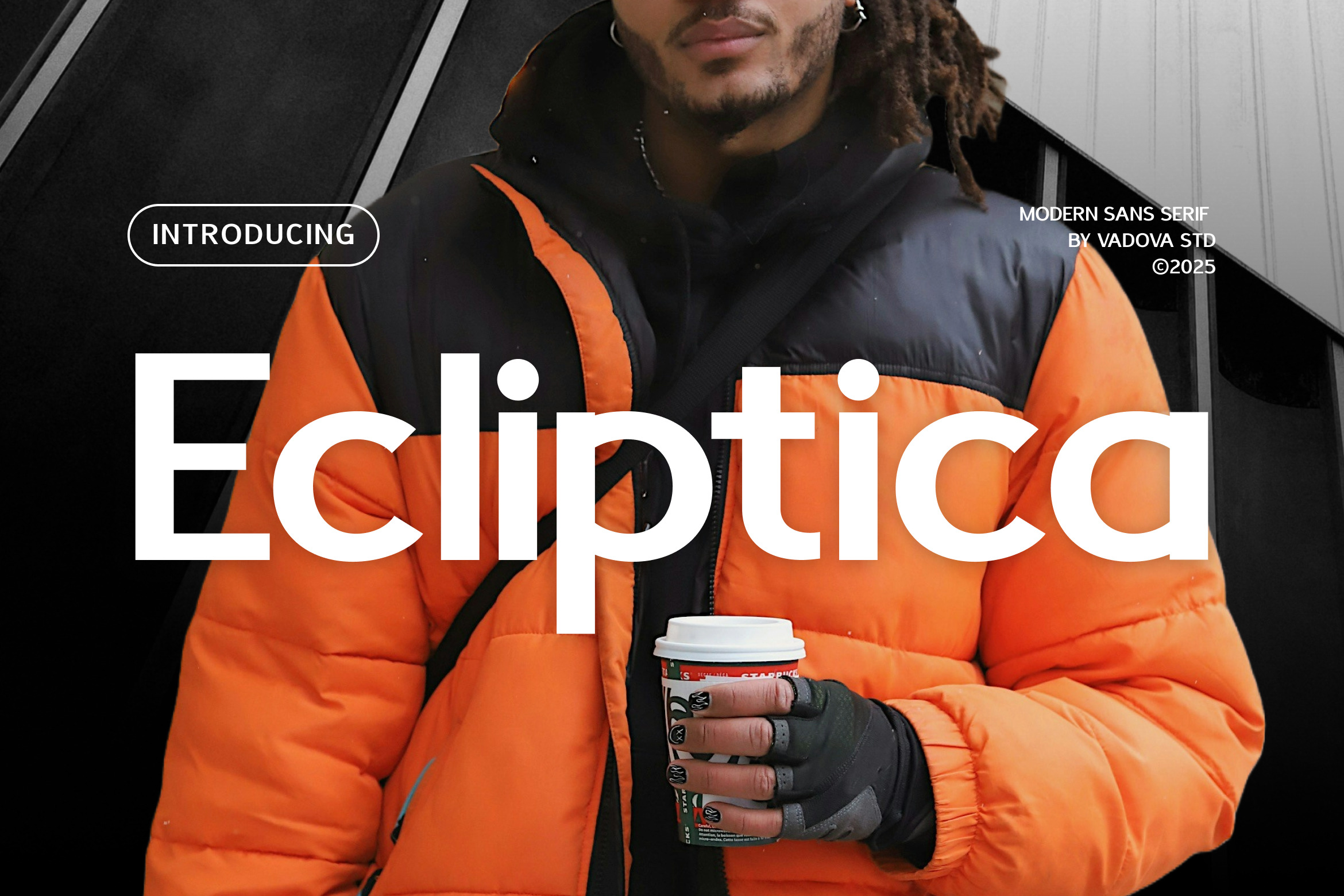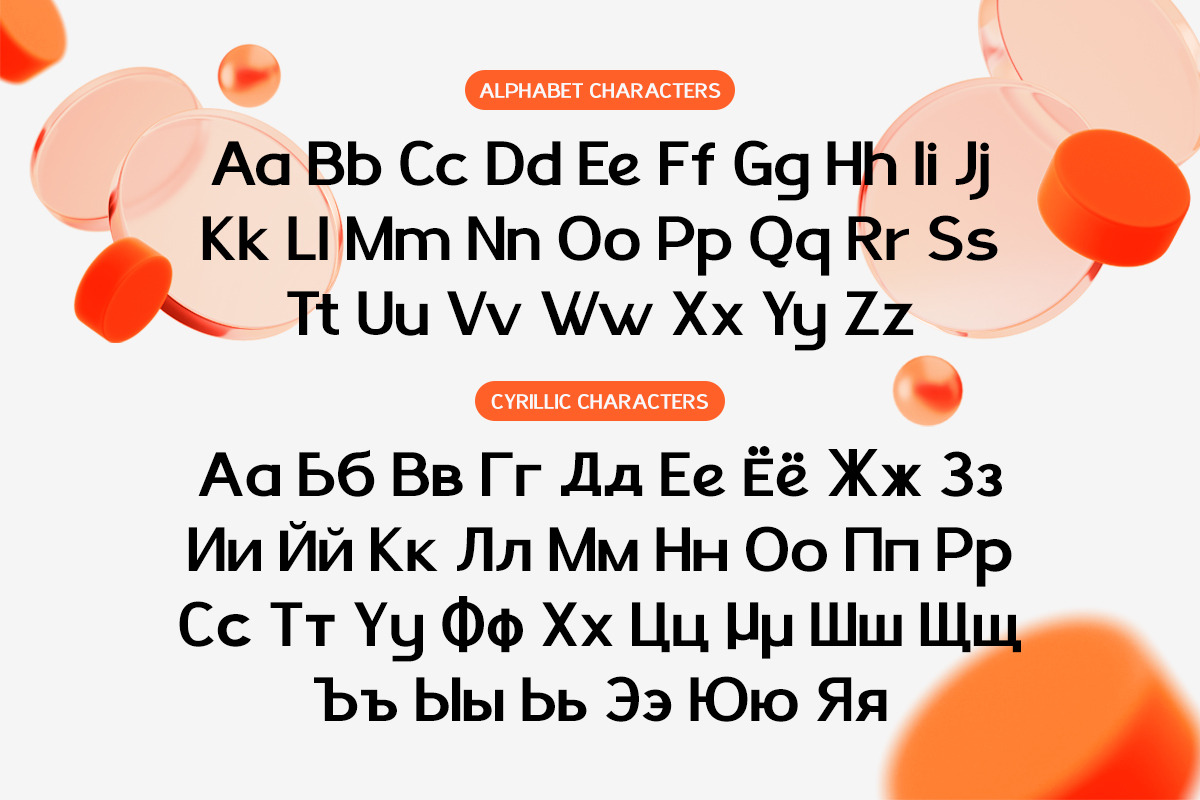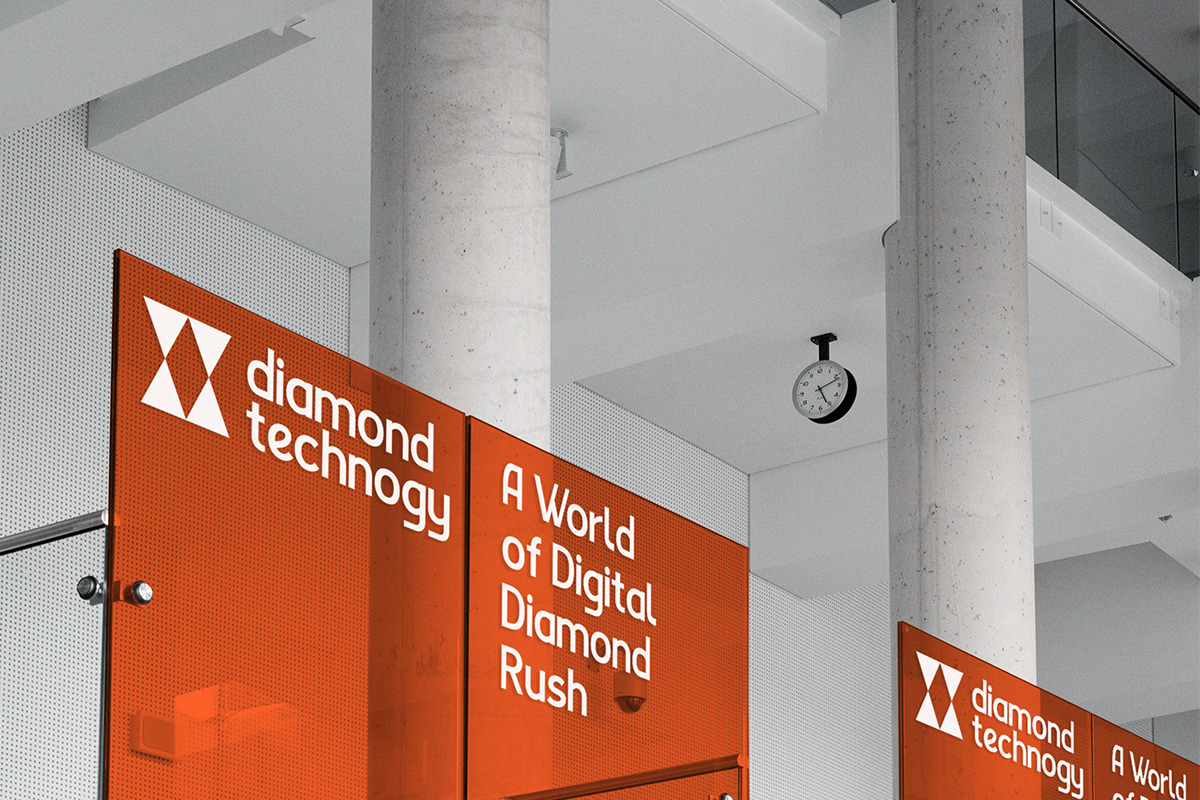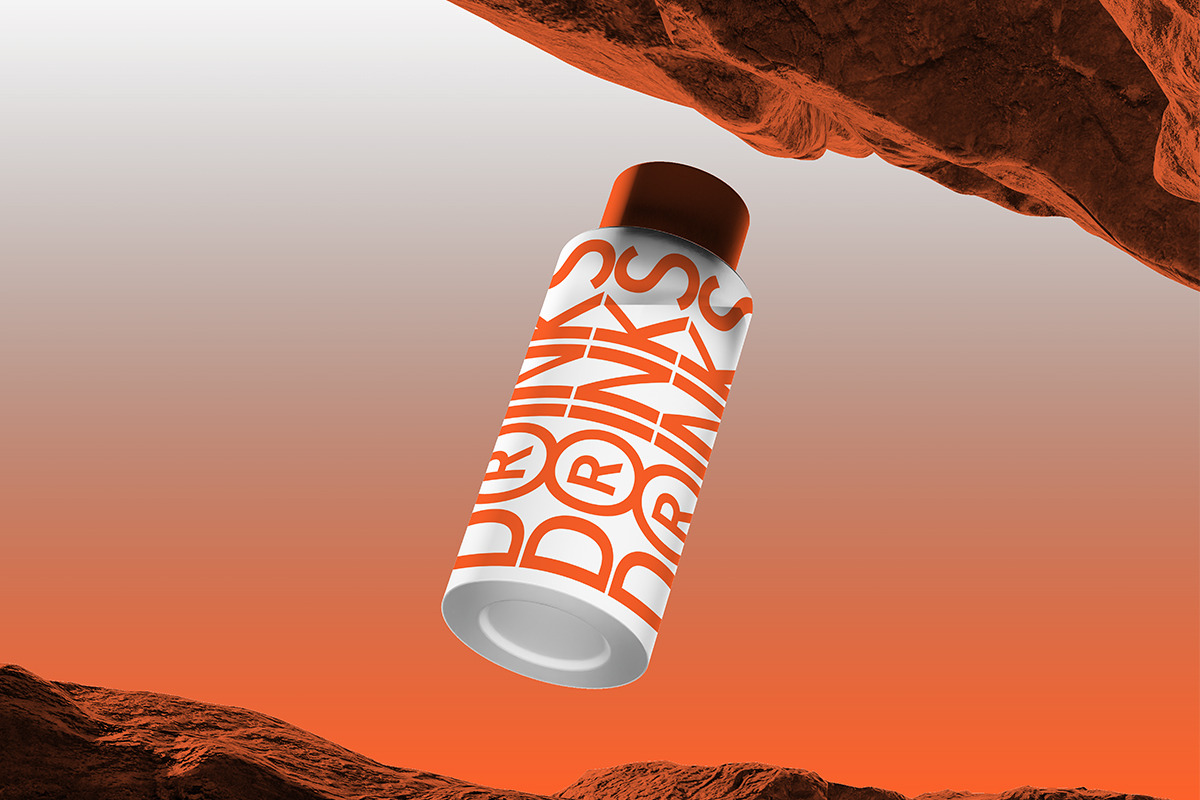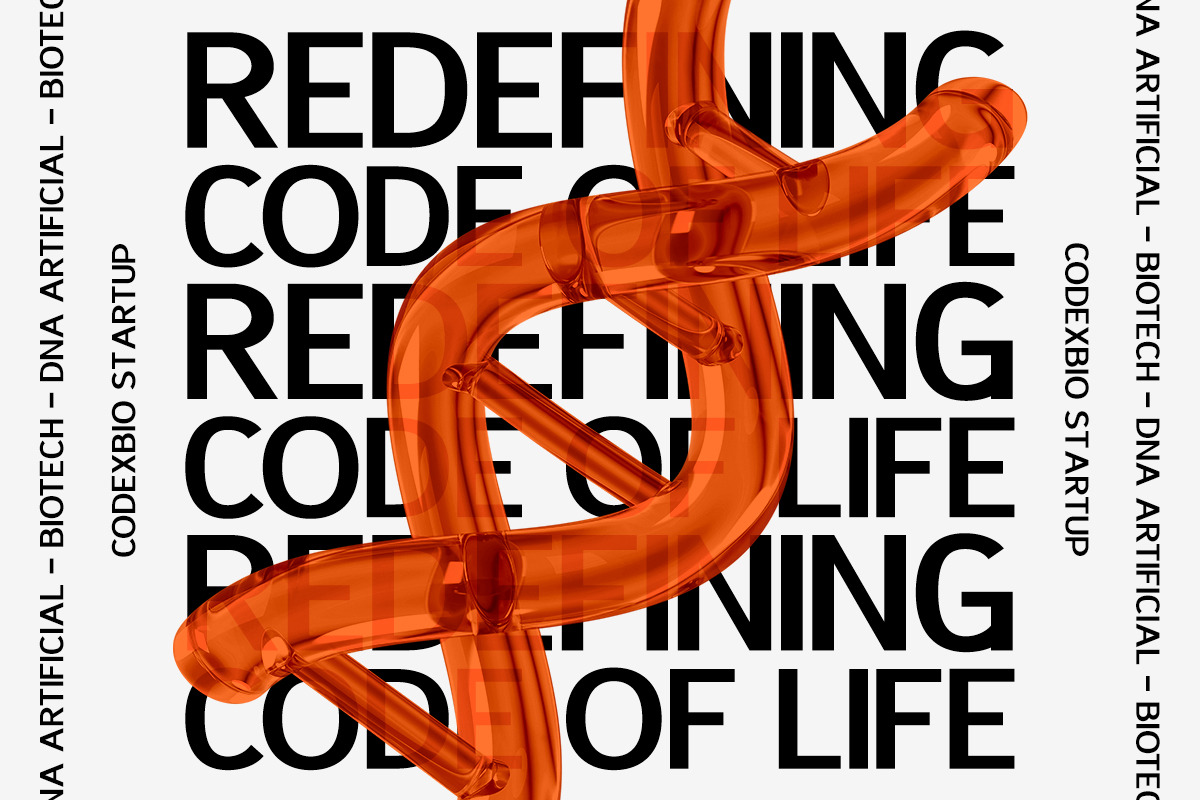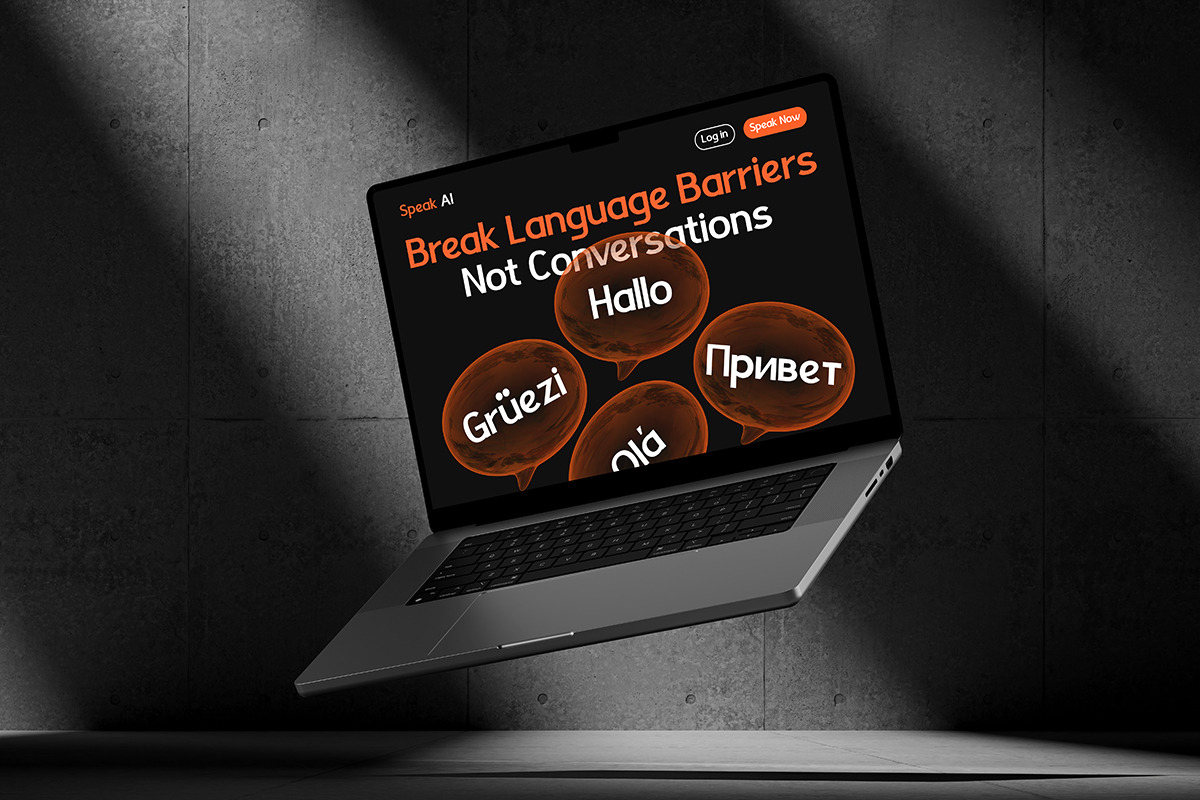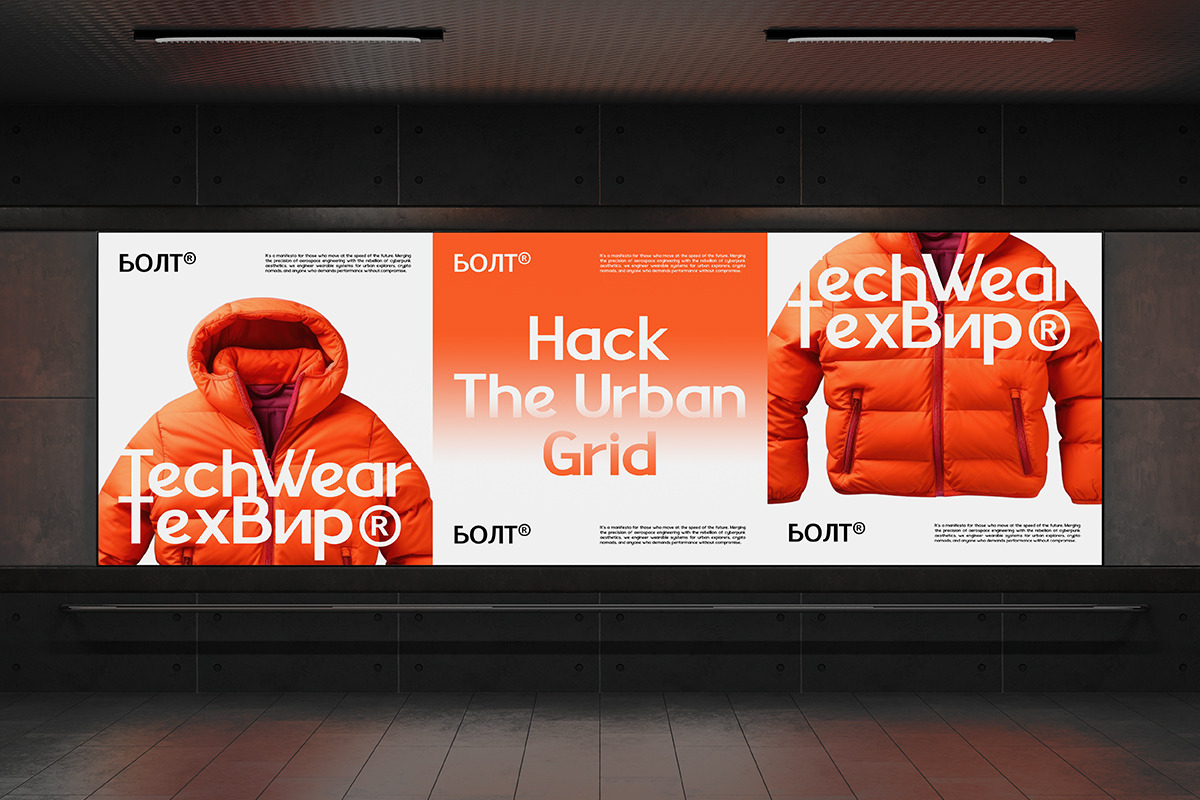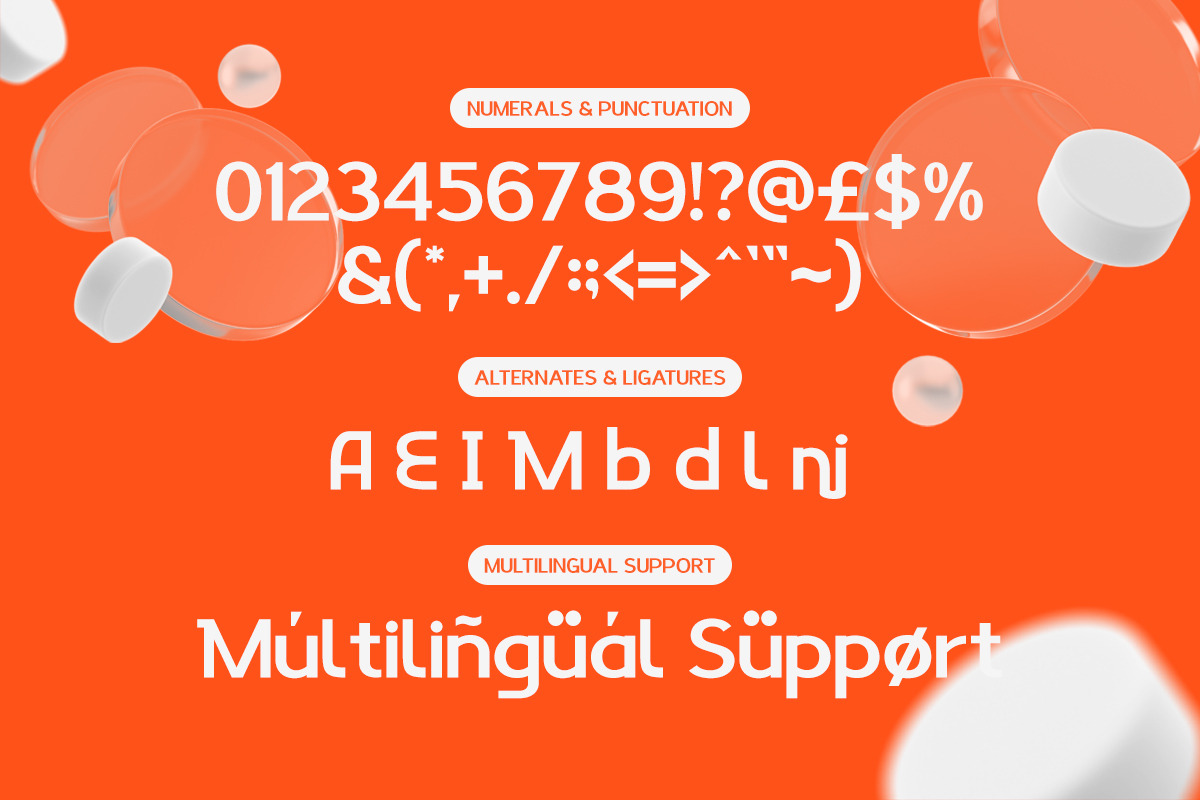
Ecliptica Modern Sans Serif Font
Ecliptica is a clean and contemporary sans serif typeface with geometric influences and a balanced, minimal structure. It features uppercase and lowercase characters, numerals, punctuation, multilingual support including cyrillic and smooth curves that enhance readability. Designed for clarity and style, this font is perfect for high-tech branding, editorial layouts, digital interfaces, and futuristic concepts.
Ecliptica is ideal for creative professionals looking to build striking, modern designs with clean aesthetics. Its clarity and versatile structure make it a smart choice for tech startups, editorial spreads, app UI/UX, marketing materials, futuristic branding, or any project requiring a polished, forward-thinking visual identity.
- Clean geometric sans serif with modern minimalism at its core
- Balanced proportions with sharp terminals for a sleek finish
- Subtle circular elements and open counters for enhanced readability
- Multilingual support including extended Latin and Cyrillic characters
- Optimized kerning and spacing for both digital interfaces and print design
- Tech-forward brand identities needing a sleek and confident look
- UI/UX design for modern websites, apps, and software dashboards
- Contemporary editorial layouts, magazines, and blog platforms
- Minimalist product packaging, labels, and print collateral
- Digital marketing kits, pitch decks, and social media templates